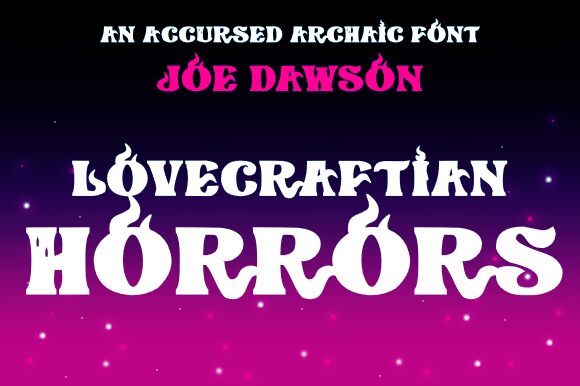
Unleash the dark and mysterious power of ‘Lovecraftian Horrors’ font by Joseph Dawson. With its hauntingly beautiful design, this extra-bold typeface brings a sense of dread and fascination to your Halloween projects.
Whether you're creating spine-chilling book covers, spine-tingling movie posters, or spine-chilling digital designs, this semi-expanded font will transport your audience into the realms of cosmic horror. Let the eldritch elegance of ‘Lovecraftian Horrors’ font captivate and thrill those who dare to gaze upon it.
Step into the unknown and embrace the macabre with this spellbinding typeface.